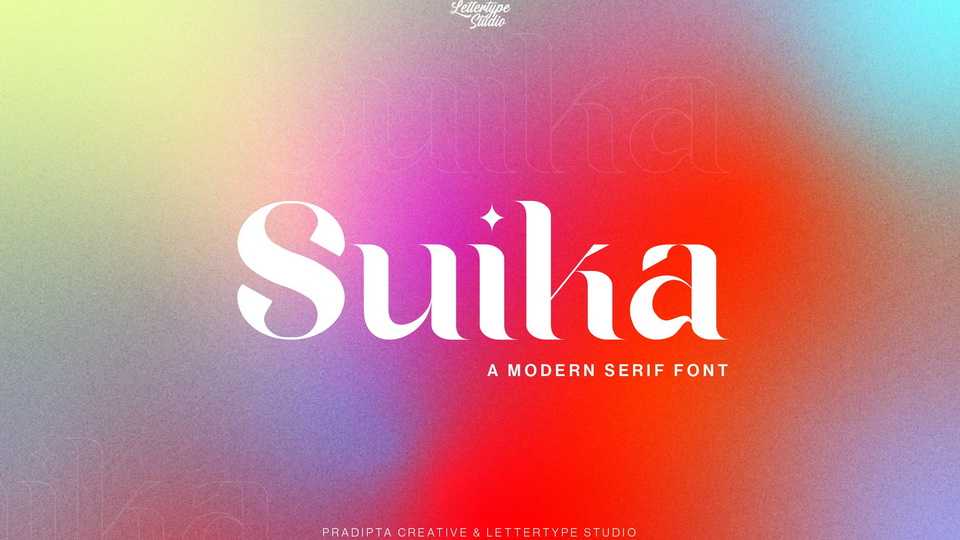
Download Suika font, a high contrast serif typeface with a vintage appearance. Suika font will be perfect for logo design, branding, clothing, signage, posters, wedding invitations and so much more.
Designer: Pradipta Creative